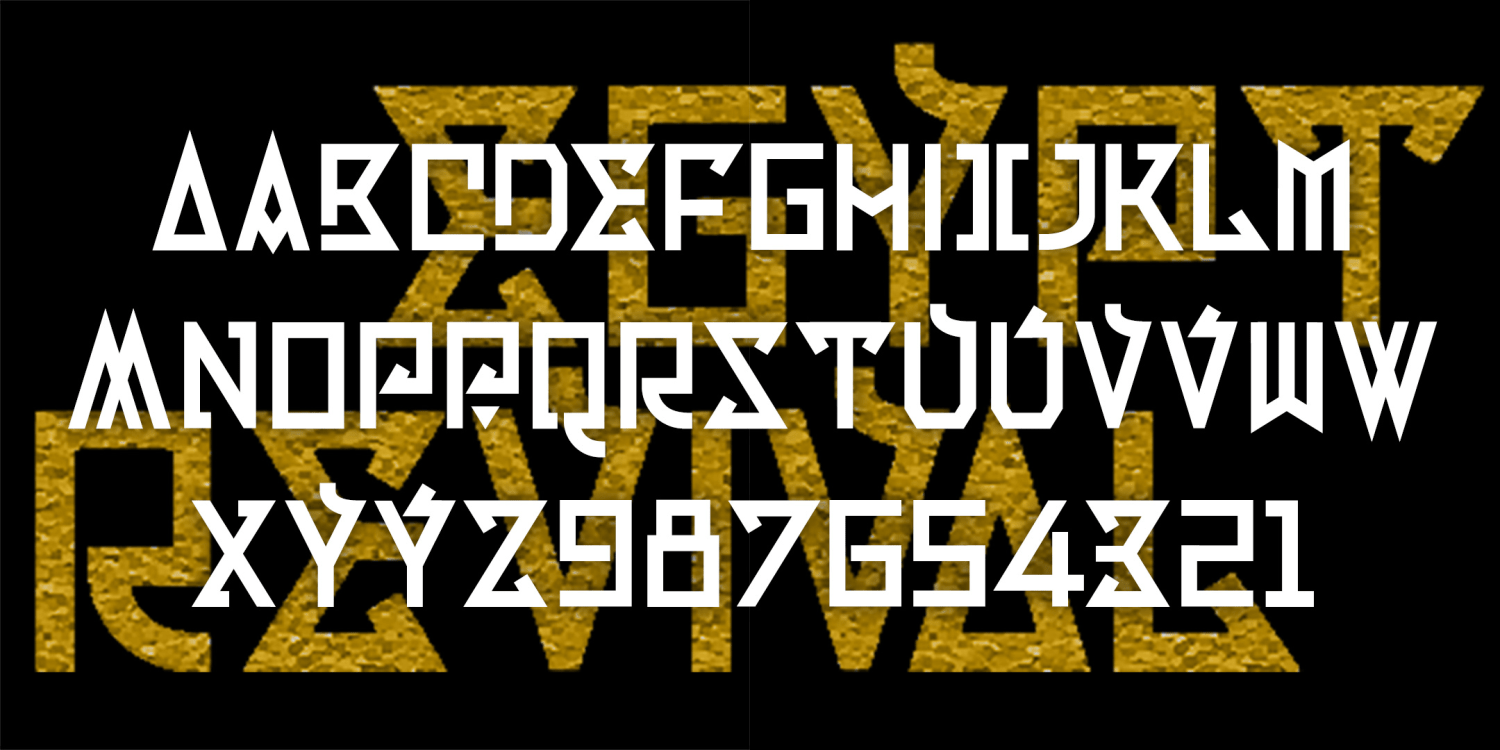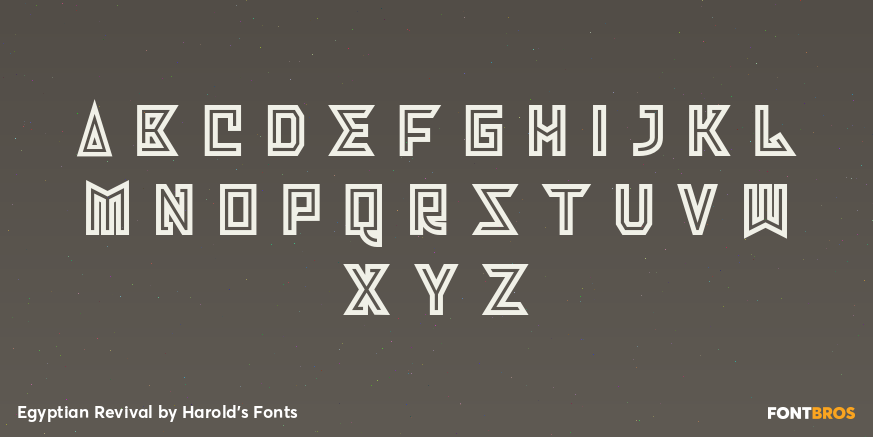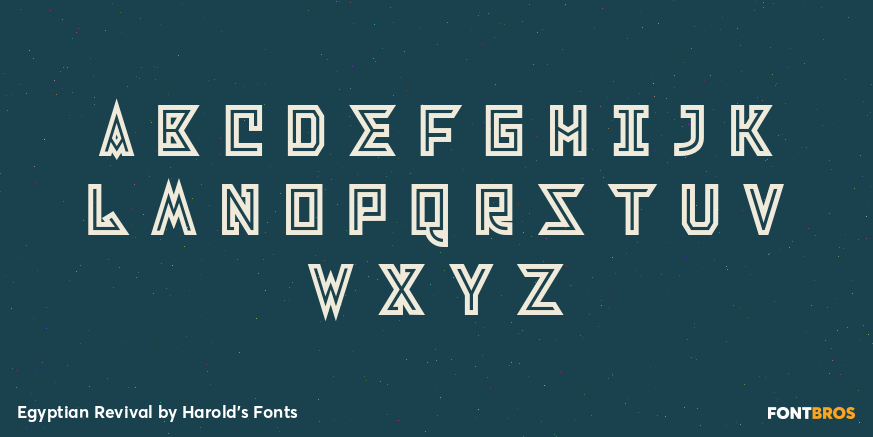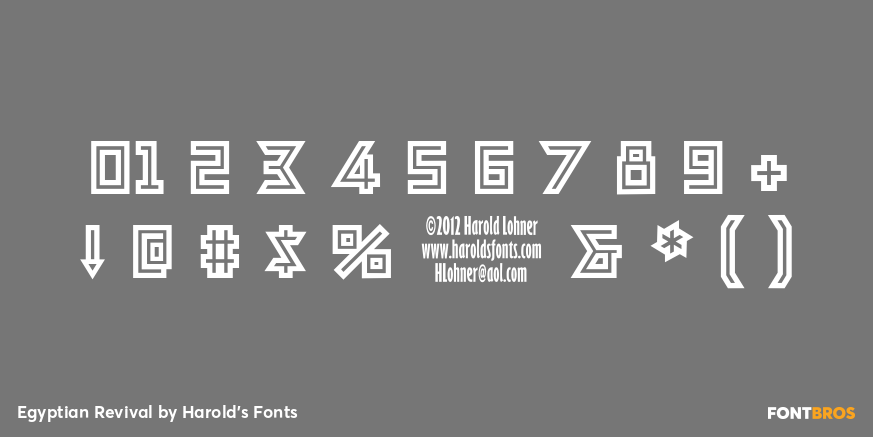
Egyptian Revival
Font Family by Harold's Fonts
Egyptian Revival is an exotic retro font with geometric flourishes. It was inspired by the single word EGYPT on an old book. I imagined I was an early 20th-century designer, inspired by Art Deco and the discovery of Tut's tomb. In regular and inline versions, each including some alternate letterforms.